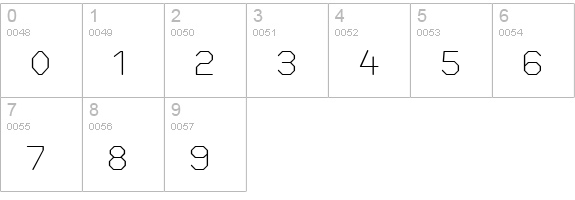
Elgethy Est Square font exudes a perfect blend of modernity and elegance, making it a versatile choice for various design projects. With its clean lines and geometric shapes, this font brings a sense of sophistication to any design. The bold and unique letterforms of Elgethy Est Square font make it stand out and grab attention effortlessly. The best part about Elgethy Est Square font is that it is available for free download at FontsMarket.com. This means that you can easily access this stunning font and use it in your projects without any cost. Whether you are working on branding, web design, or print materials, Elgethy Est Square font is sure to elevate your work and leave a lasting impression on your audience. Don't miss the opportunity to add this exquisite font to your collection. Download Elgethy Est Square font today and unleash your creativity with its timeless appeal and modern aesthetic.